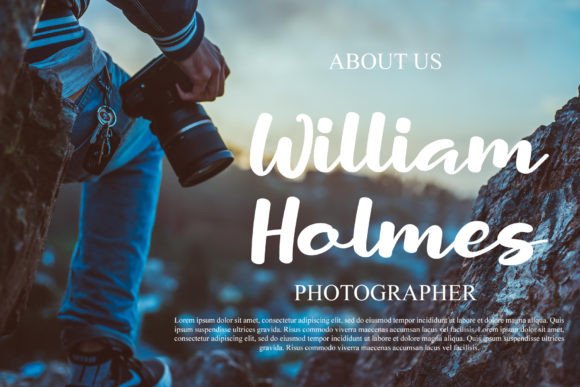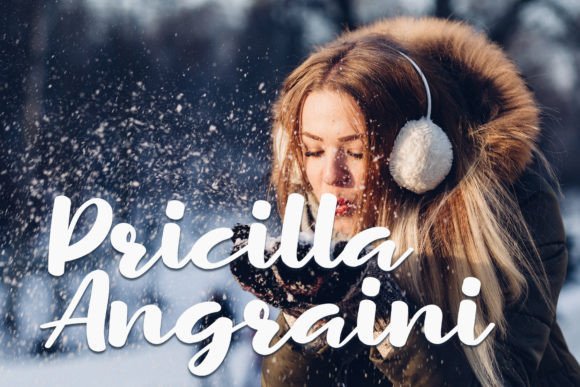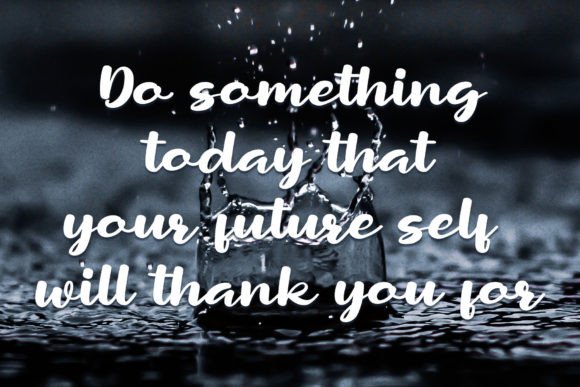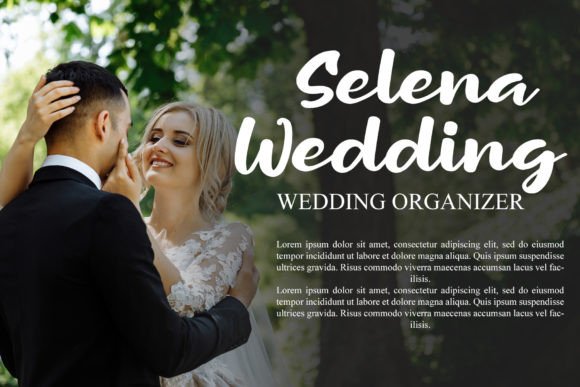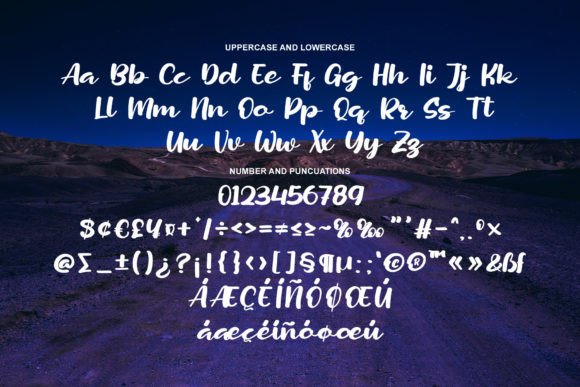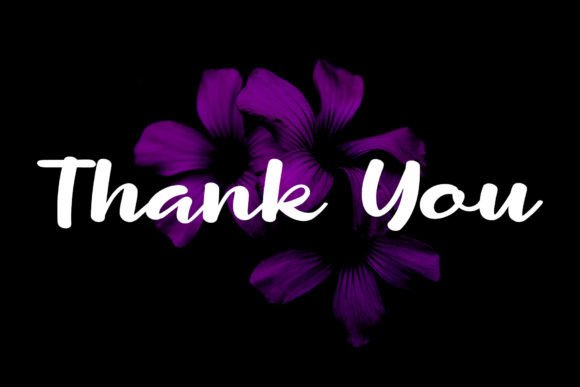
Introduction to Mandala Handsome Font
Have you ever found yourself staring at a blank page, searching for the perfect font to bring your creative project to life? That moment of hesitation can be frustrating, especially when you’re eager to see your idea take shape. But what if you could unlock the secret to adding a touch of magic to your design? Enter the Mandala Handsome Font, a lovely and sweet handwritten script font that’s sure to captivate your audience.
This delightful font is a game-changer for designers, offering a high-quality design resource that’s perfect for adding a joyful and romantic touch to each of your projects. Whether you’re working on a wedding invitation, a birthday card, or a social media post, the Mandala Handsome Font is a versatile choice that’s sure to impress.
Key Features of Mandala Handsome Font
- Unique, elegant design ideal for creative projects requiring a touch of sophistication
- Includes a range of characters, including uppercase and lowercase letters, numbers, and special characters, making it suitable for various design applications
Honest Review: Mandala Handsome Font
I recently stumbled upon the Mandala Handsome Font, and I must say, it’s been a game-changer for my creative projects. The high quality of this font is truly exceptional, making it a valuable design resource.
Here’s what I love about the Mandala Handsome Font:
- ✨ Unique design that adds a touch of elegance to any project
- ✨ Excellent clarity and readability, even on a transparent background
However, I do have a few reservations:
- ⚠️ Limited character set, which may not be ideal for lengthy texts
- ⚠️ Not suitable for all types of projects, particularly those requiring a bold or condensed font style
Overall, I’m thoroughly impressed with the Mandala Handsome Font. Its high quality and unique design make it an excellent choice for creative projects that require a touch of sophistication. While it may have some limitations, I believe it’s a valuable addition to any designer’s toolkit.
The Mandala Handsome Font is ideal for a variety of creative projects, including wedding invitations, birthday cards, and business presentations. It’s also a great choice for designers who want to add a touch of elegance and sophistication to their designs.